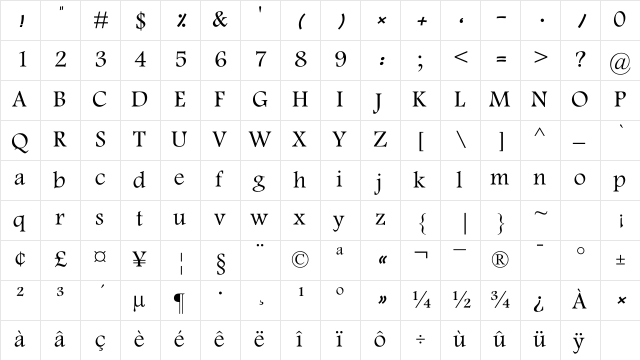
Motken K Farnaz Font Preview
Design Context for Motken K Farnaz Typeface
Motken K Farnaz offers clean, dependable letterforms without strong stylistic allegiance, making it a practical choice for designers who need flexibility.